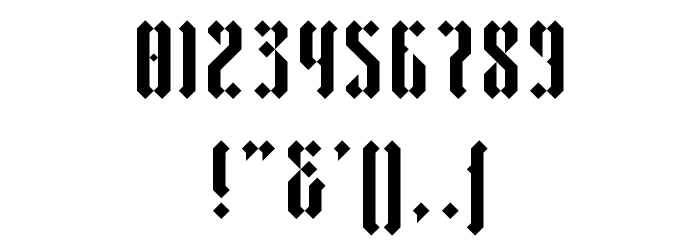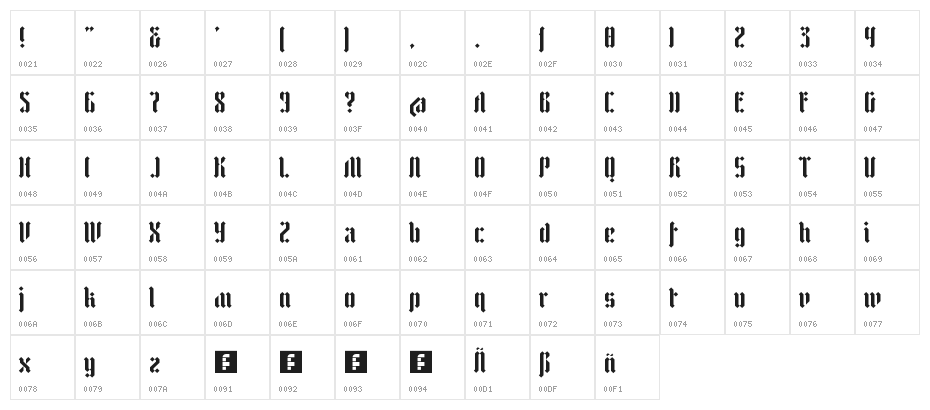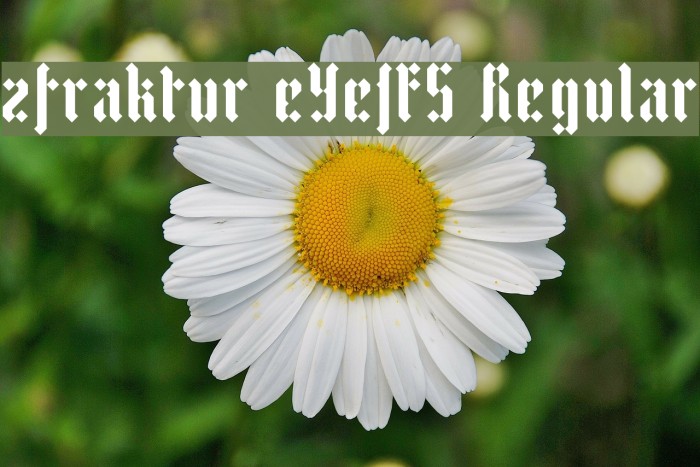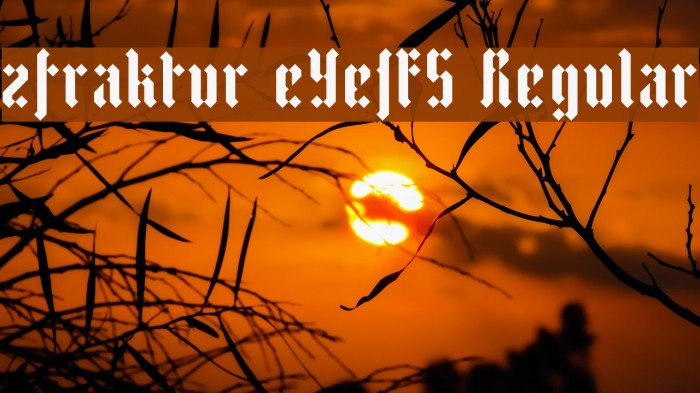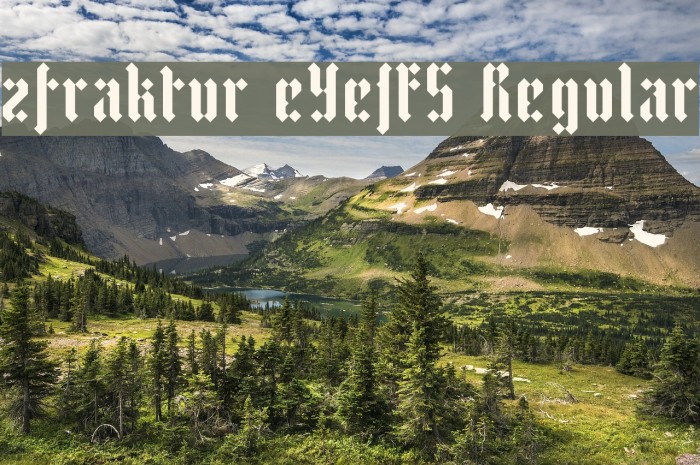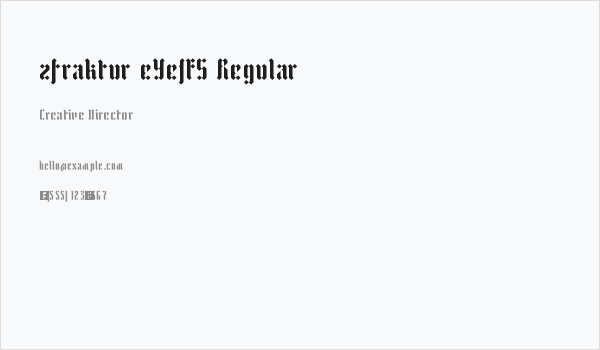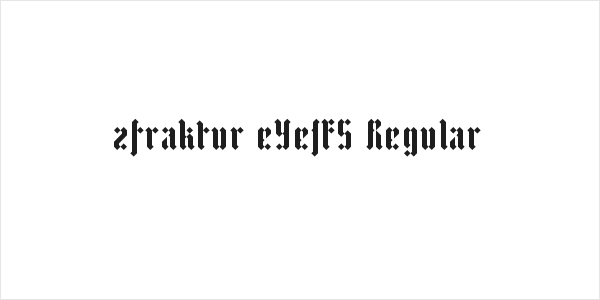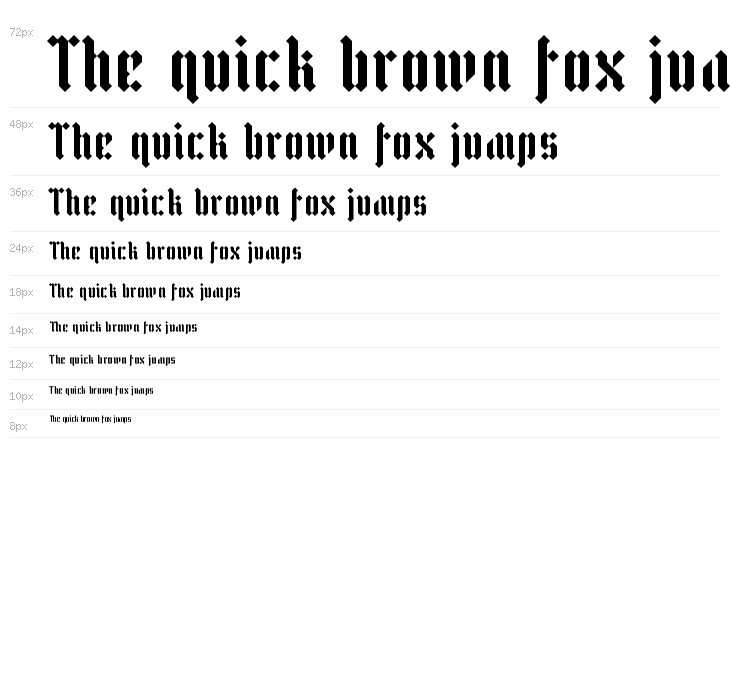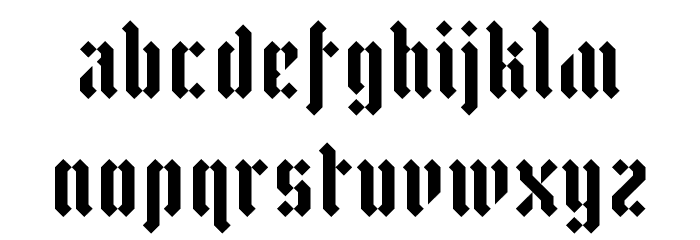
zfraktur eYe/FS Regular Font
zfraktur eYe/FS Regular Description
This font exhibits a traditional blackletter style, characterized by its sharp, angular lines and intricate detailing. The uppercase letters are bold and commanding, with a strong vertical emphasis that is typical of Gothic script. The lowercase letters maintain the same angularity, creating a cohesive and historical feel. Numbers and special characters are designed to match the ornate style, ensuring consistency across all text elements. The font's overall appearance is reminiscent of medieval manuscripts, making it ideal for projects that require a touch of antiquity and elegance.
Overall StyleVintage
Use CaseHeadlines, Logos, Decorative text
Proposed ProjectsIdeal for historical documents, vintage posters, book covers, and branding that requires a classic Gothic touch.